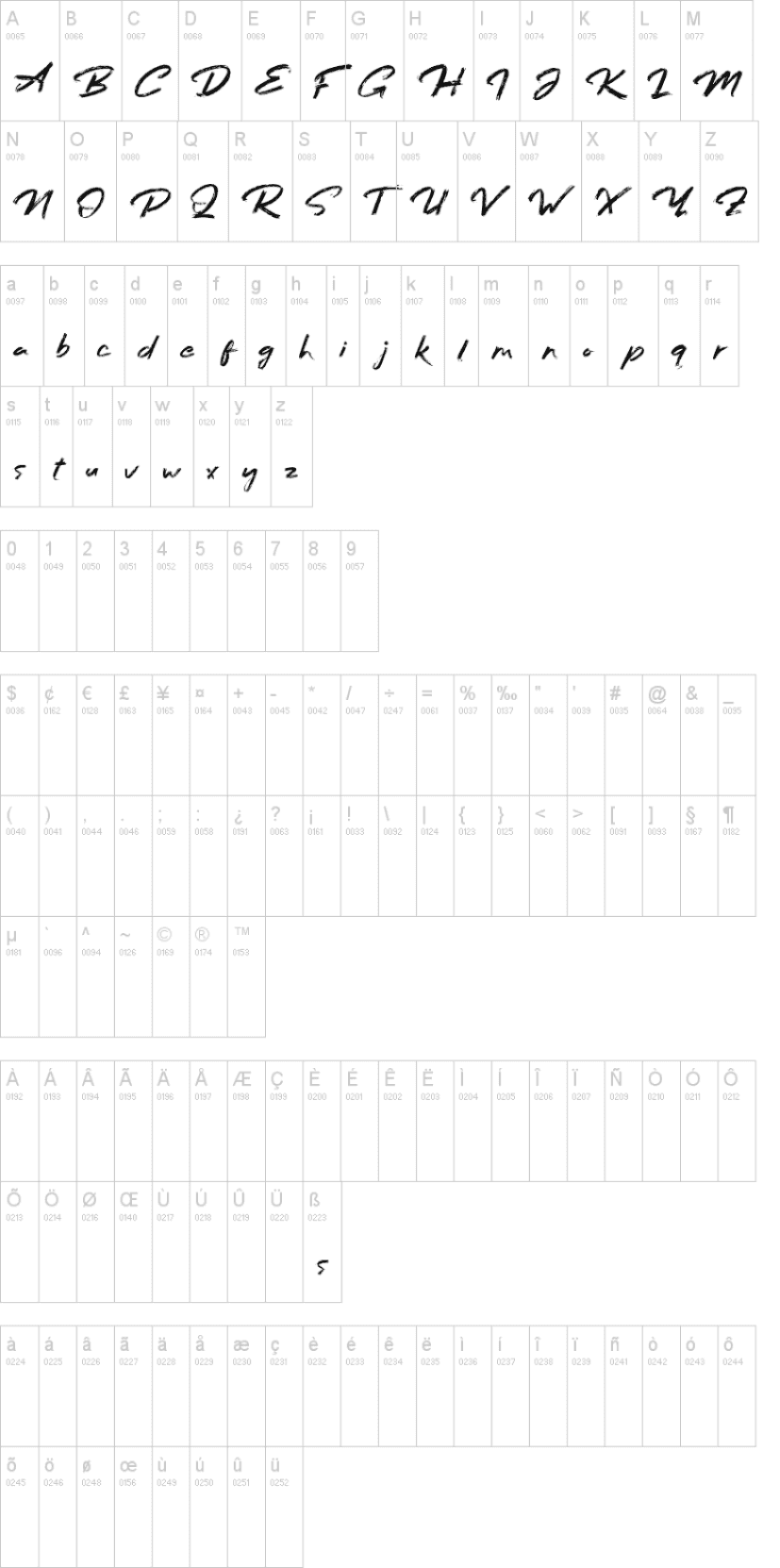
Discover Bafora Font, part of the Brush collection—a versatile and unique font perfect for adding a personal touch to your projects. Download it for free and enjoy crafting designs with style, from invitations to social media posts. This font is available exclusively for personal use, giving you the freedom to create without limits. Unlock your creativity with Bafora Font today!
It is our pleasure to present the new typeface Bafora – SVG Font, which we like the variety of colors. we also like something modern. We are trying to put these two things into a work of opentype SVG font. Then here it is: an outstanding SVG opentype font for display calls, Bafora – SVG Font is a nice modern font that has been designed from scratch with new vigorous drawn — and SVG typefaces for multiple usage.